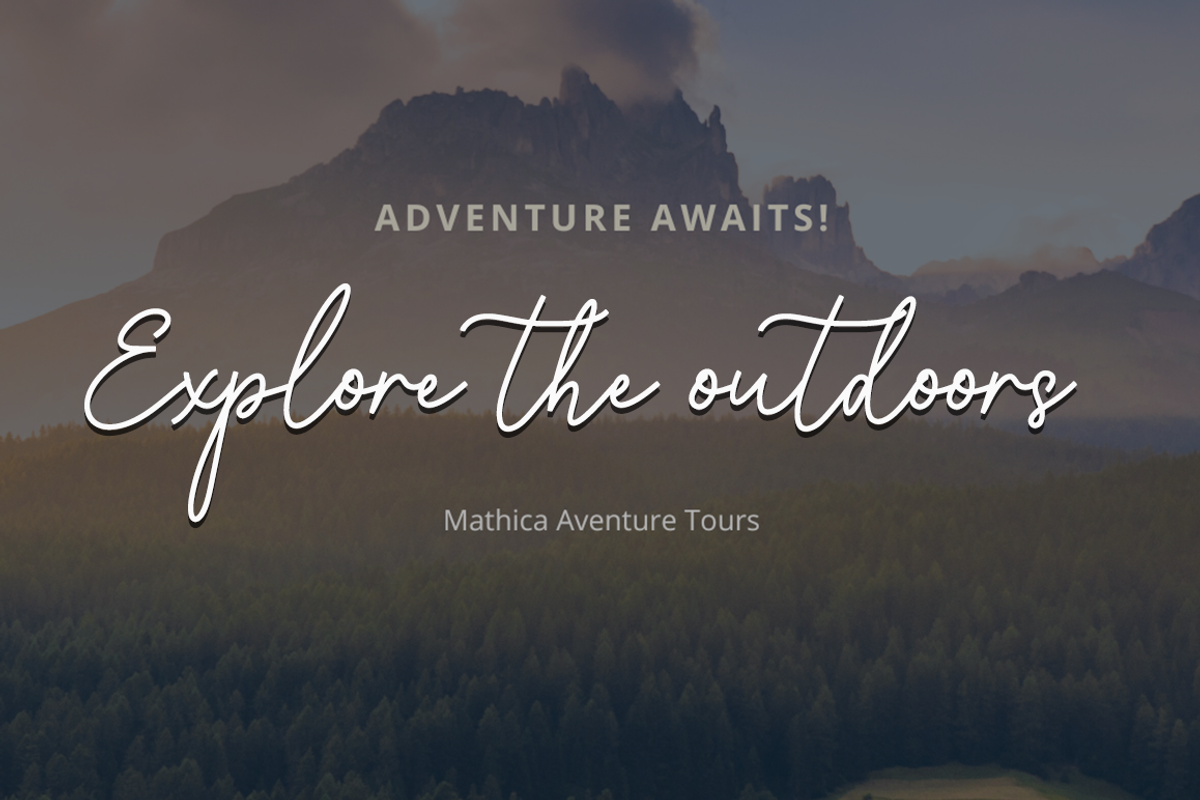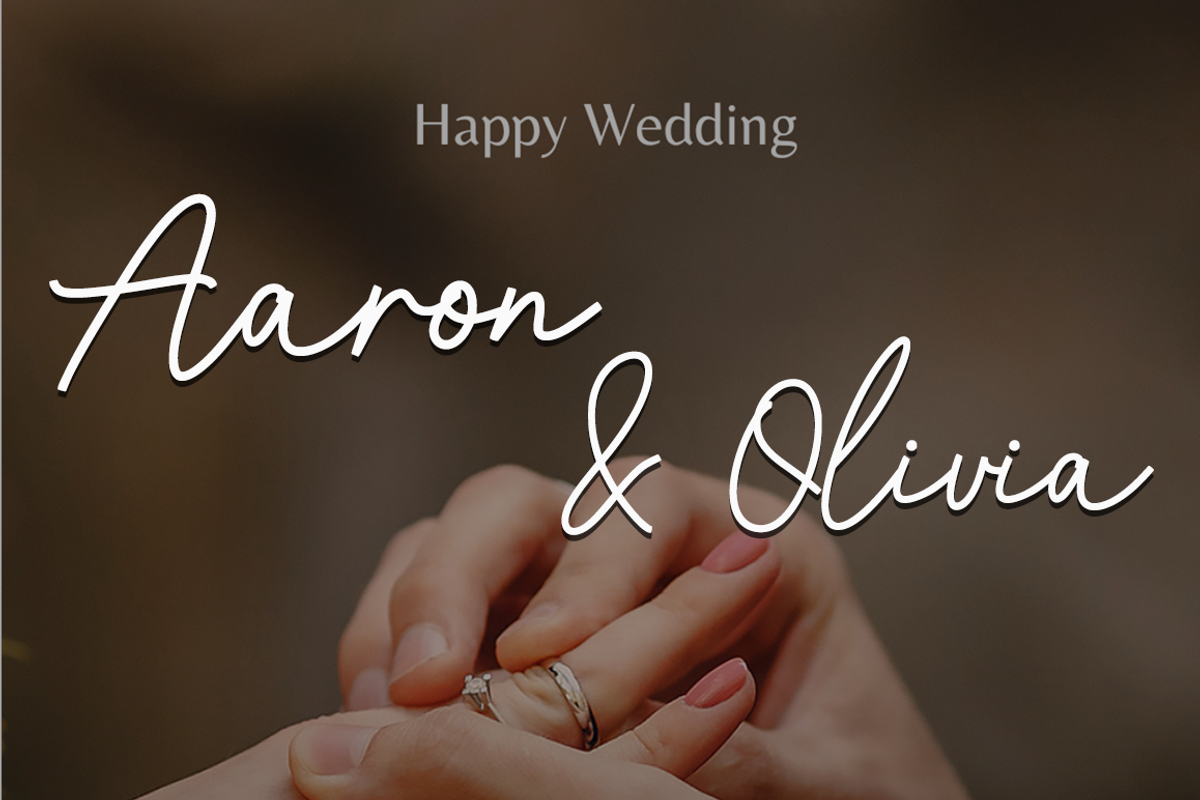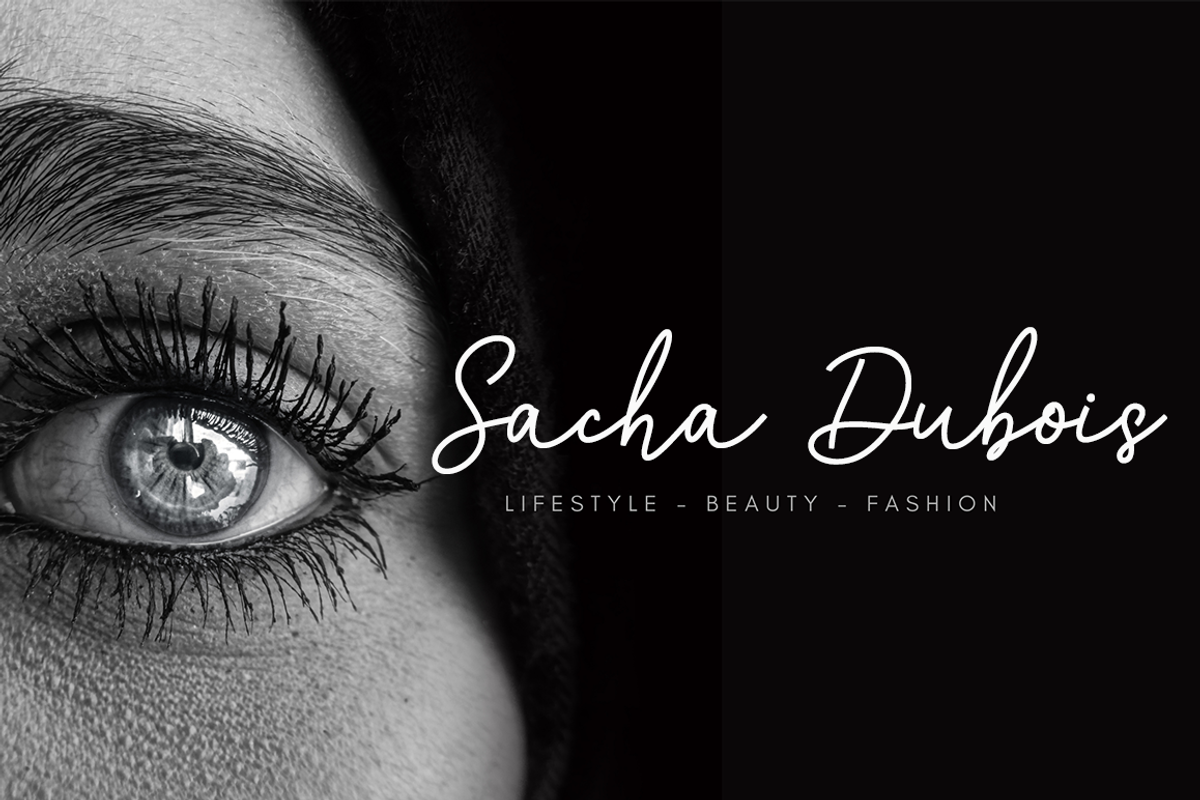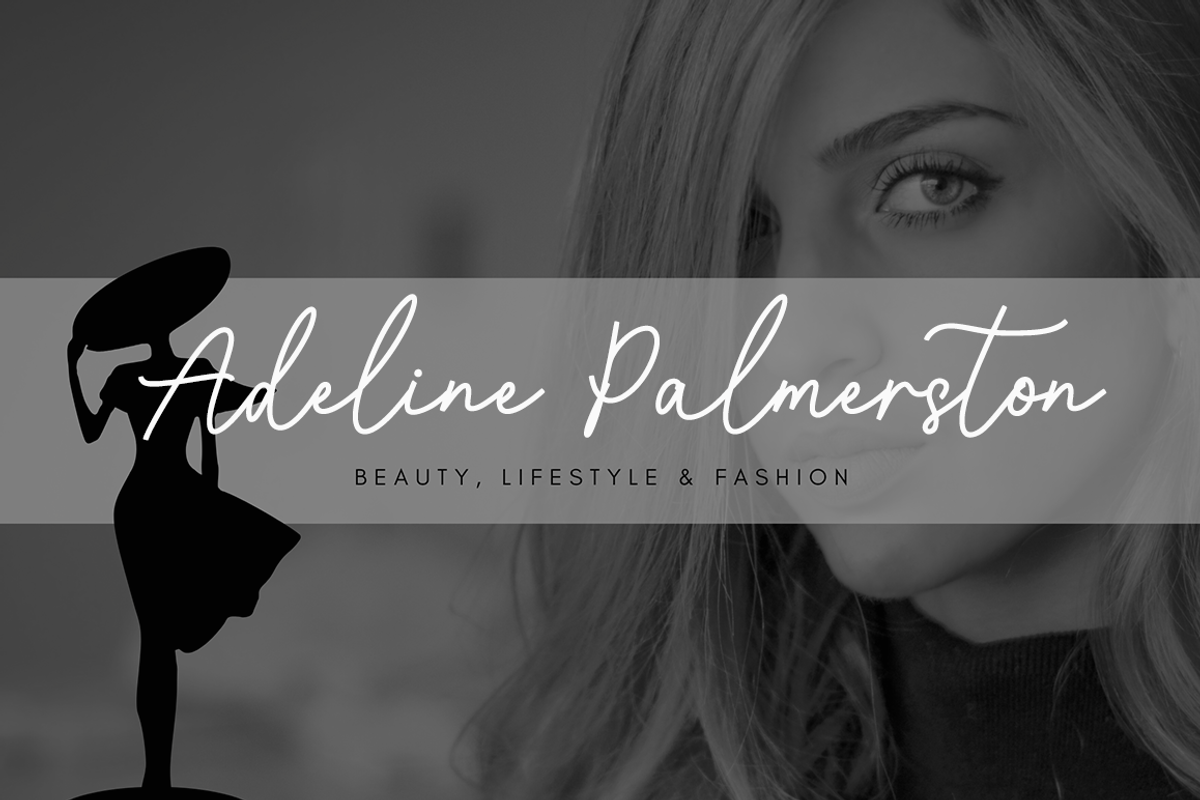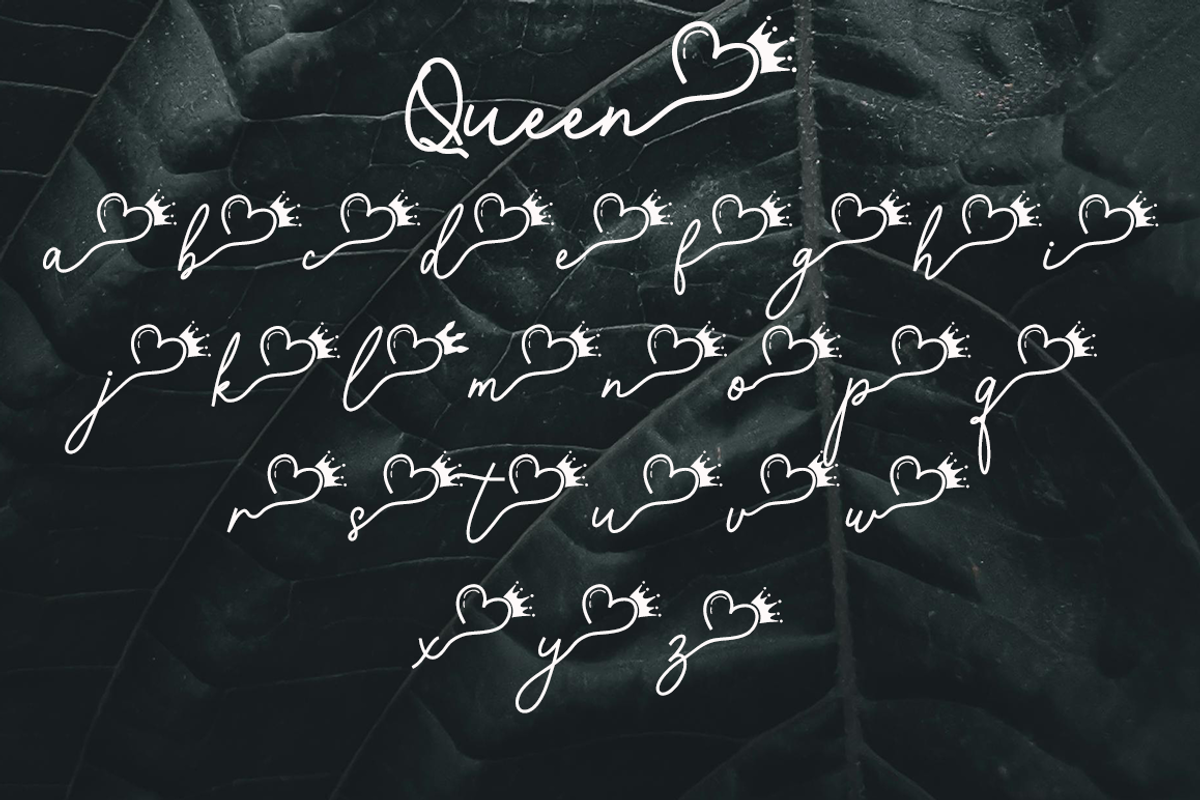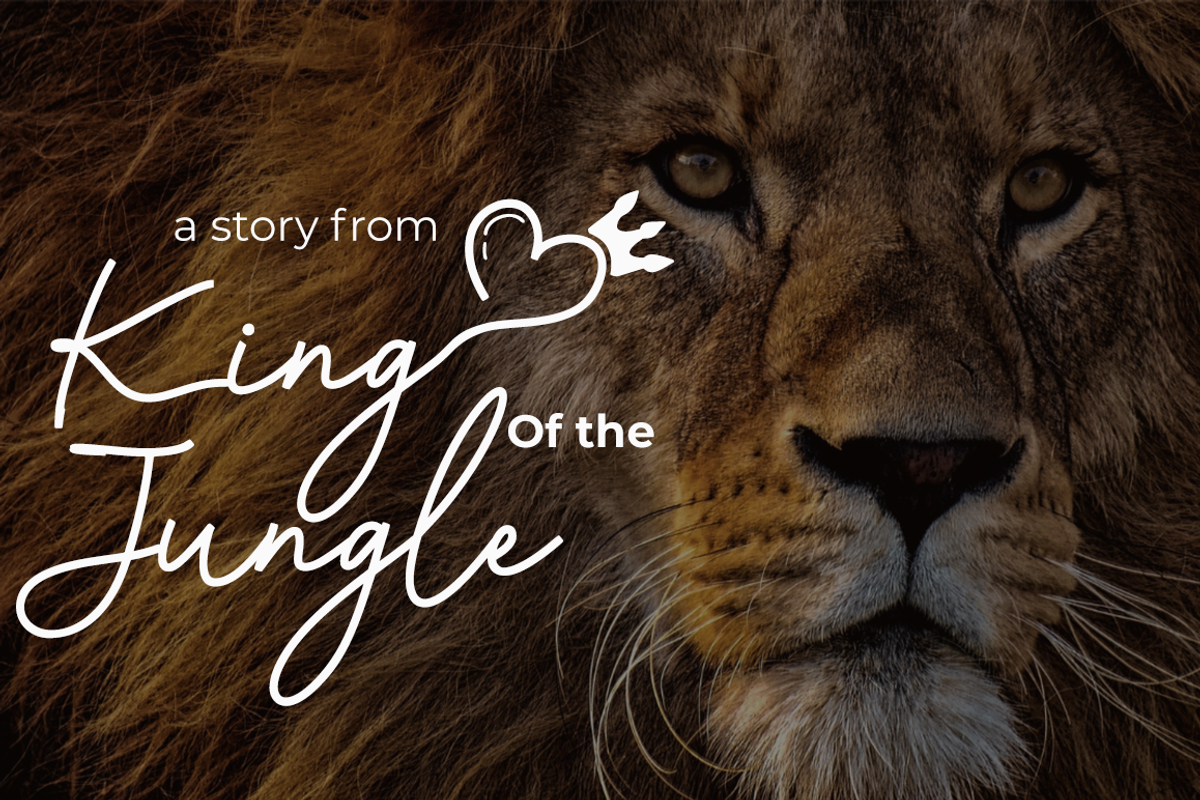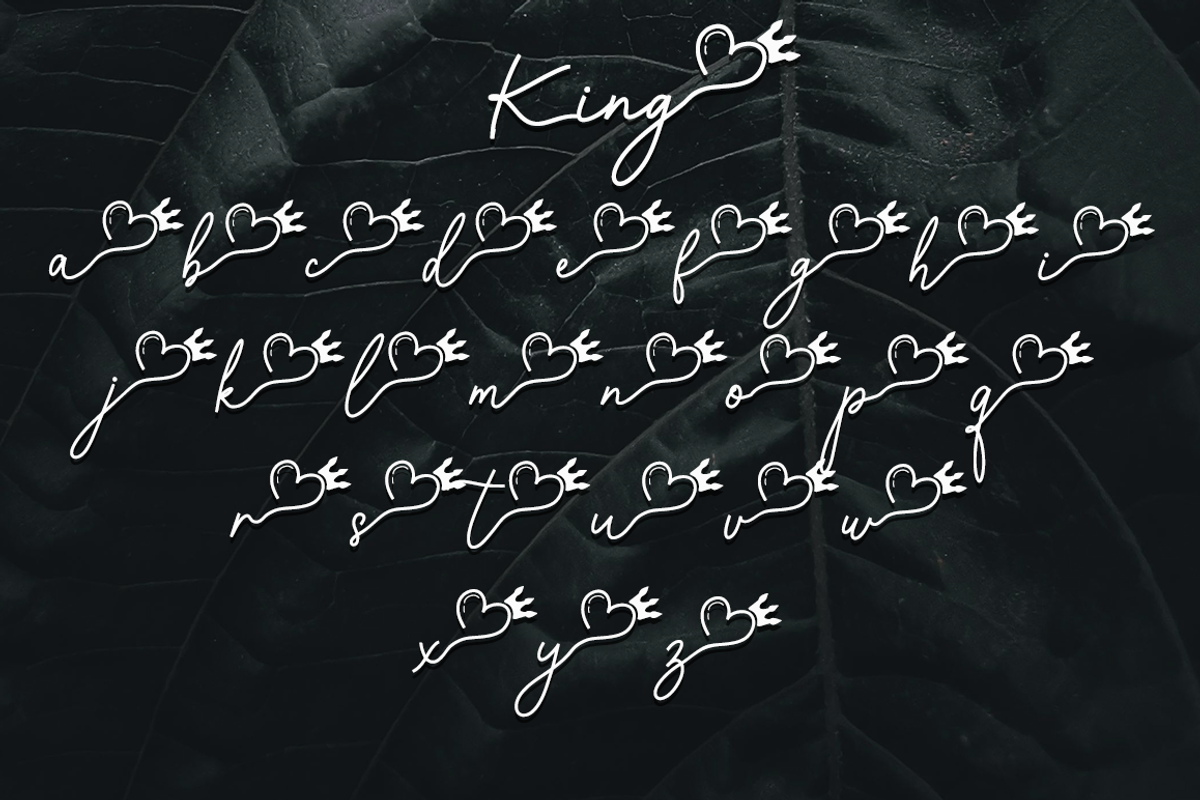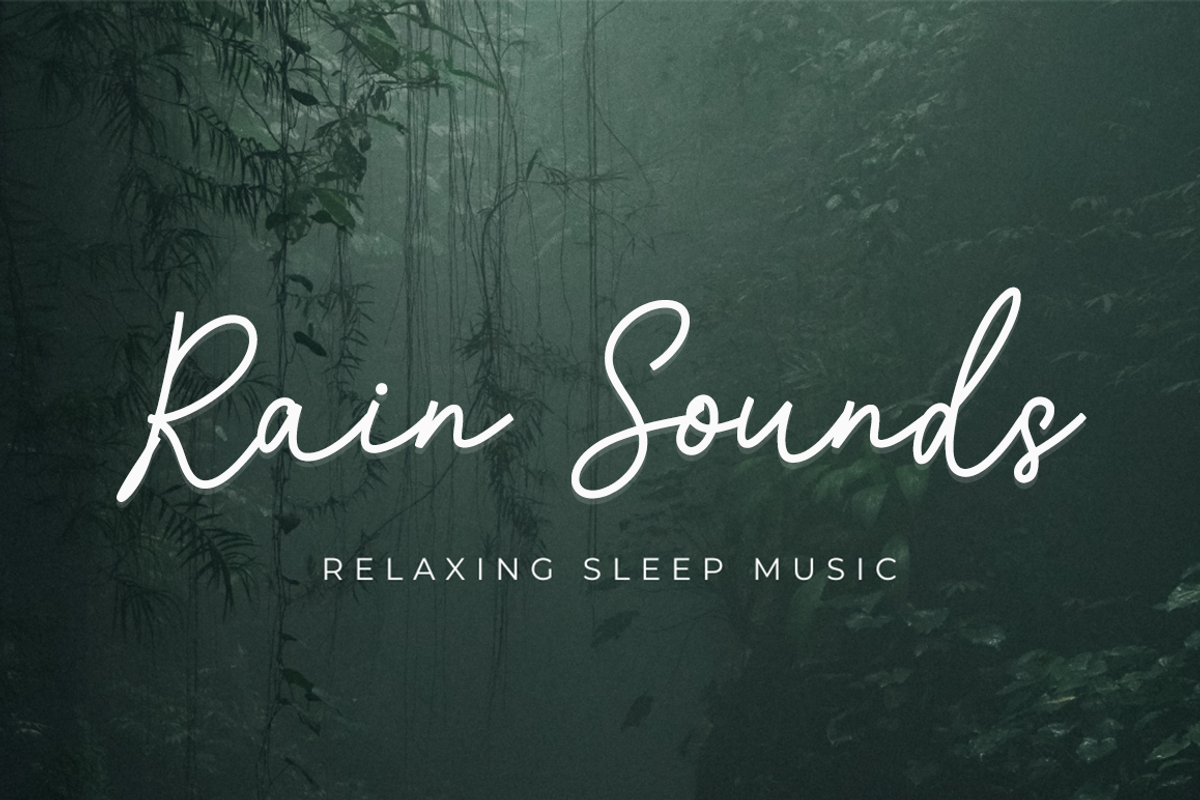
King and Queen
King And Queen Script is a modern calligraphy design, including Regular. This font is casual and beautiful with swash. Can be used for various purposes. such as logos, product packaging, wedding invitations, branding, headlines, signage, labels, signatures, book covers, posters, quotes, and more.